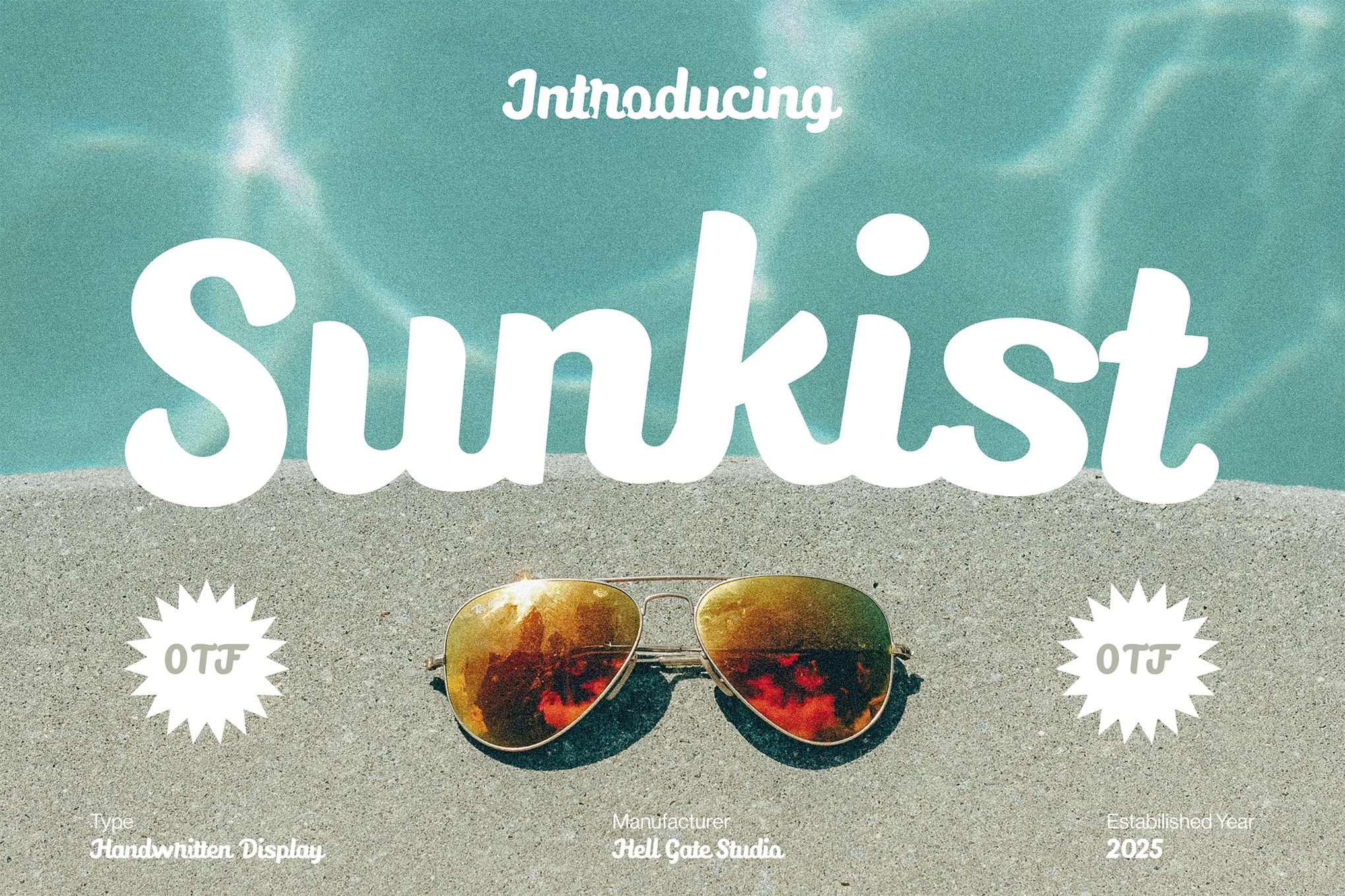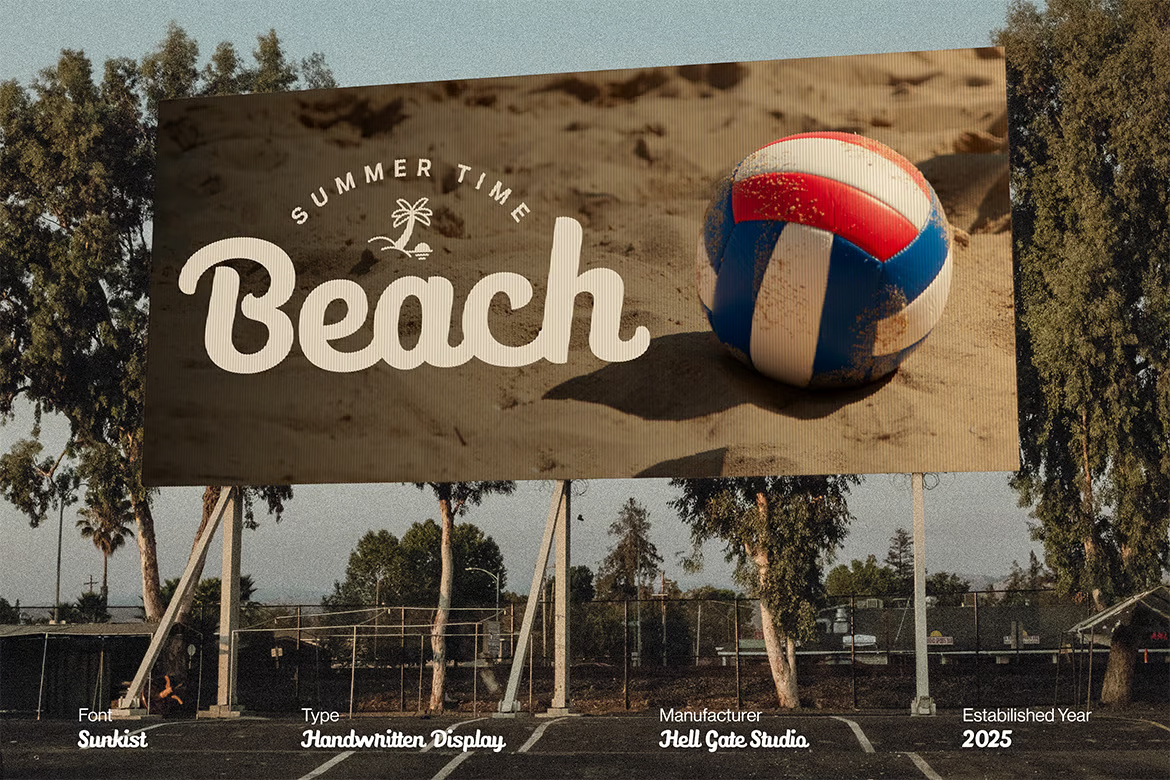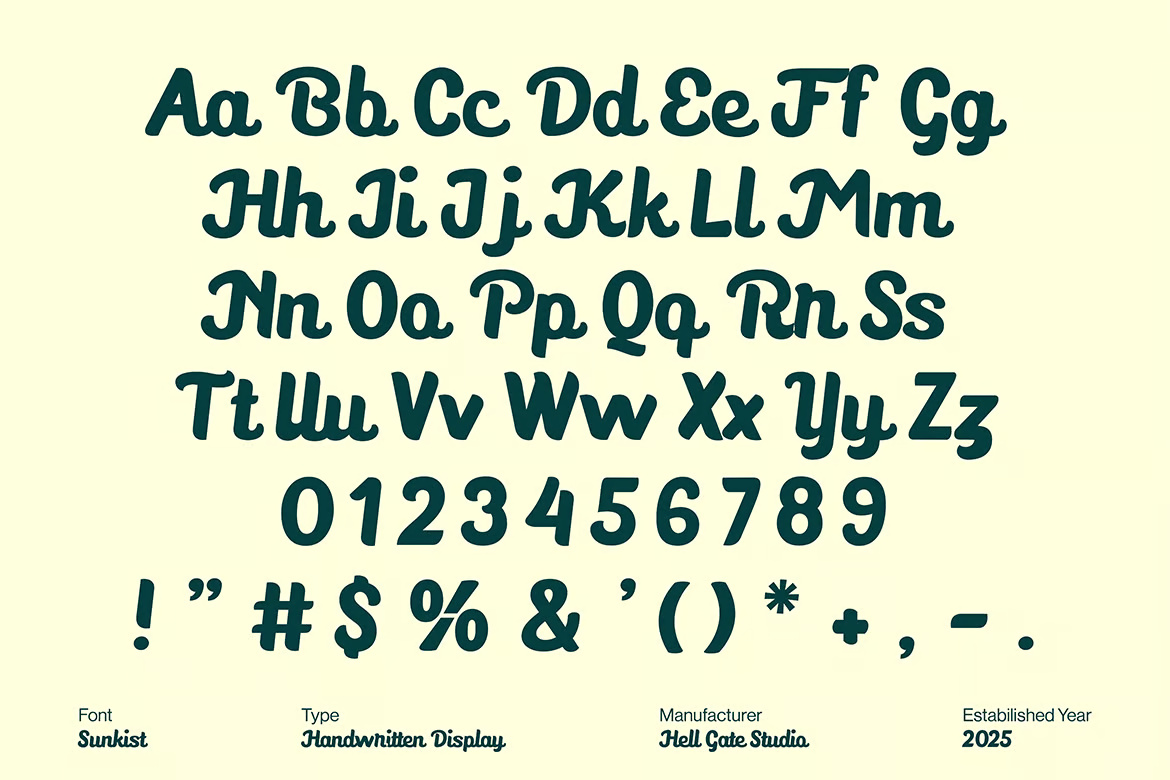
Sunkist Font
The Sunkist font is a playful and bold script typeface that mimics casual hand-lettering. It features smooth curves, slightly exaggerated strokes, and a friendly, informal appearance—ideal for cheerful branding, social media graphics, greeting cards, or creative DIY projects. Its lively and approachable design makes it a popular choice for creators who want to convey warmth and personality in their visual content.
Sunkist Script Font